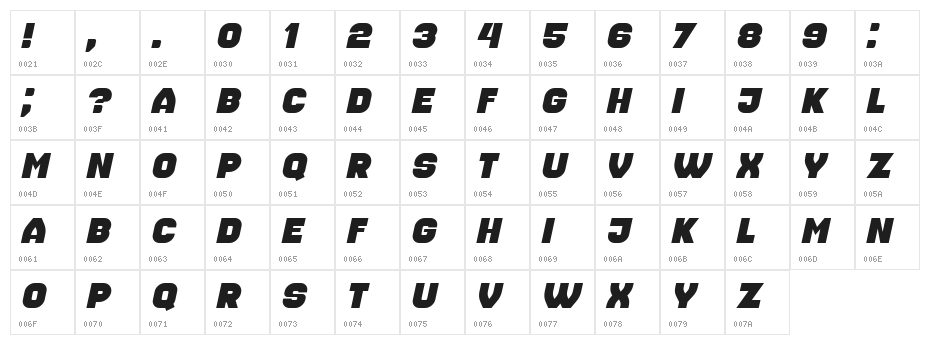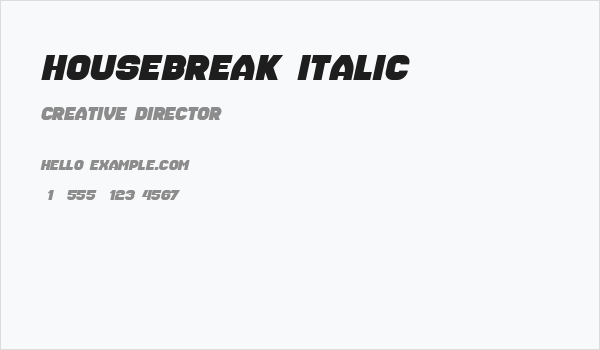
Housebreak Italic Font
Housebreak Italic Description
This font features a bold and dynamic style with a distinct italic slant, giving it a sense of movement and energy. The characters are robust and thick, with a strong presence that commands attention. The uppercase and lowercase letters maintain a consistent weight, contributing to a cohesive look. The numbers are equally bold, ensuring they stand out in any context. The special characters are designed to match the overall style, providing a seamless integration with the rest of the font. The font's design is modern and impactful, making it suitable for projects that require a strong visual statement.
Proposed ProjectsIdeal for sports branding, dynamic posters, bold headlines, and eye-catching advertisements.